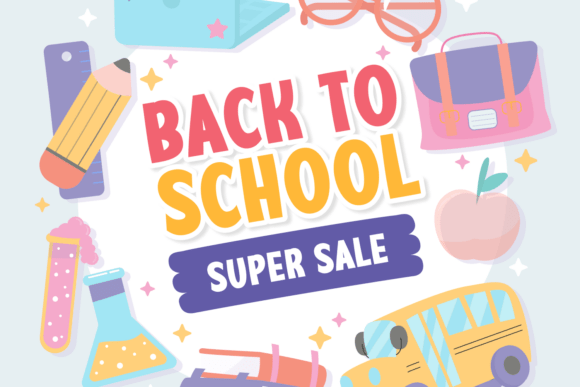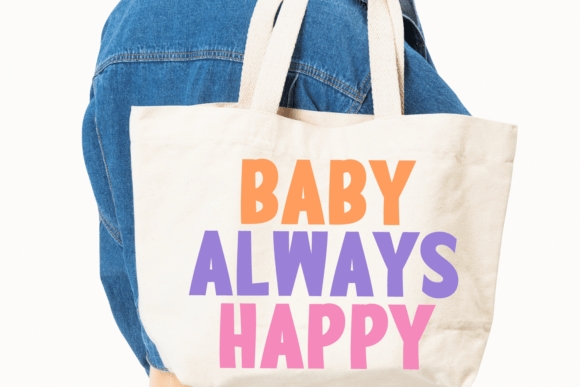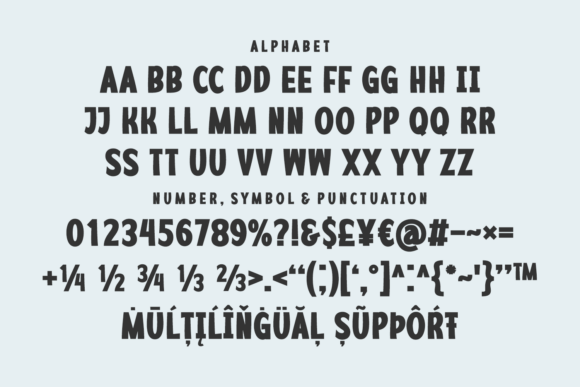
Introduction to Smart Genius Font
Introducing “Smart Genius,” the fun, whimsical typeface that exudes a light-hearted spirit perfect for stirring up a childlike sense of curiosity.
This fantastic font is characterized by its quirky, cartoon-inspired style and an irresistibly irregular shape, lending it a friendly and inviting personality Whether it’s school resources, enchanting storybooks, or colorful posters, Smart Genius infuses life into child-centric designs.
Key Features of Smart Genius Font
Why Choose Smart Genius Font?